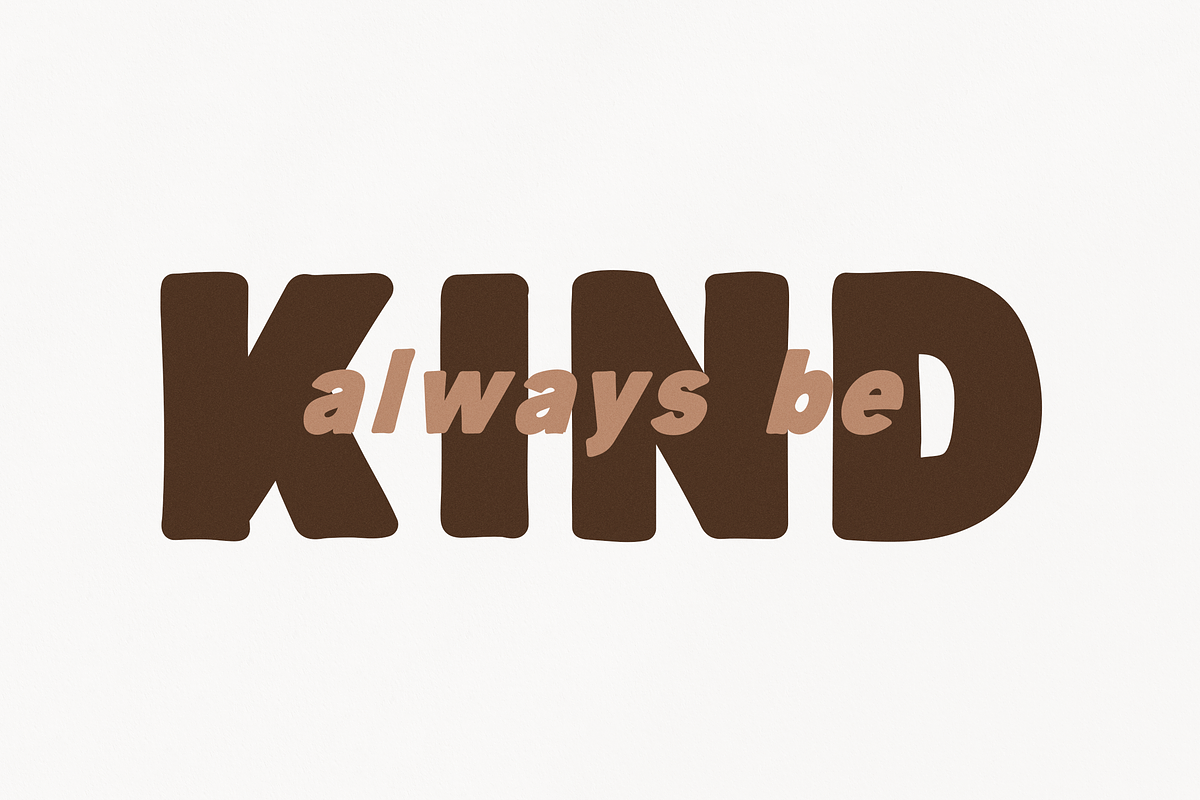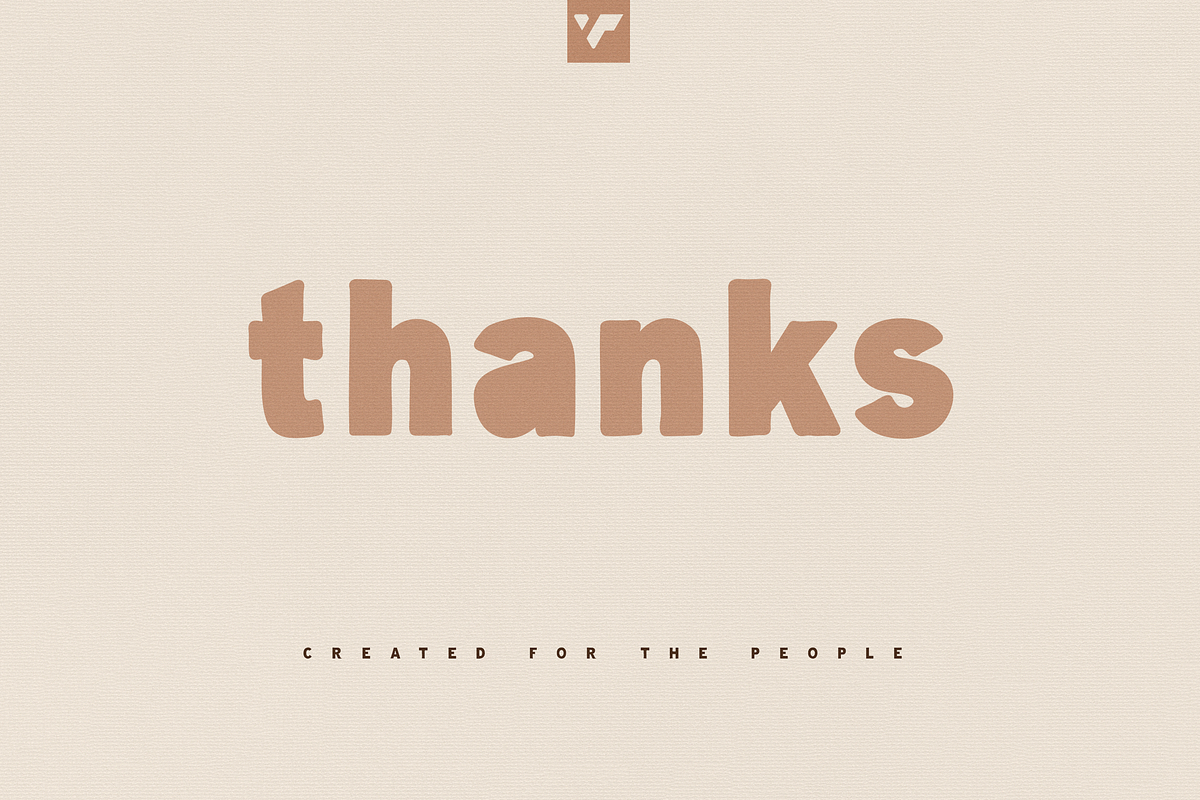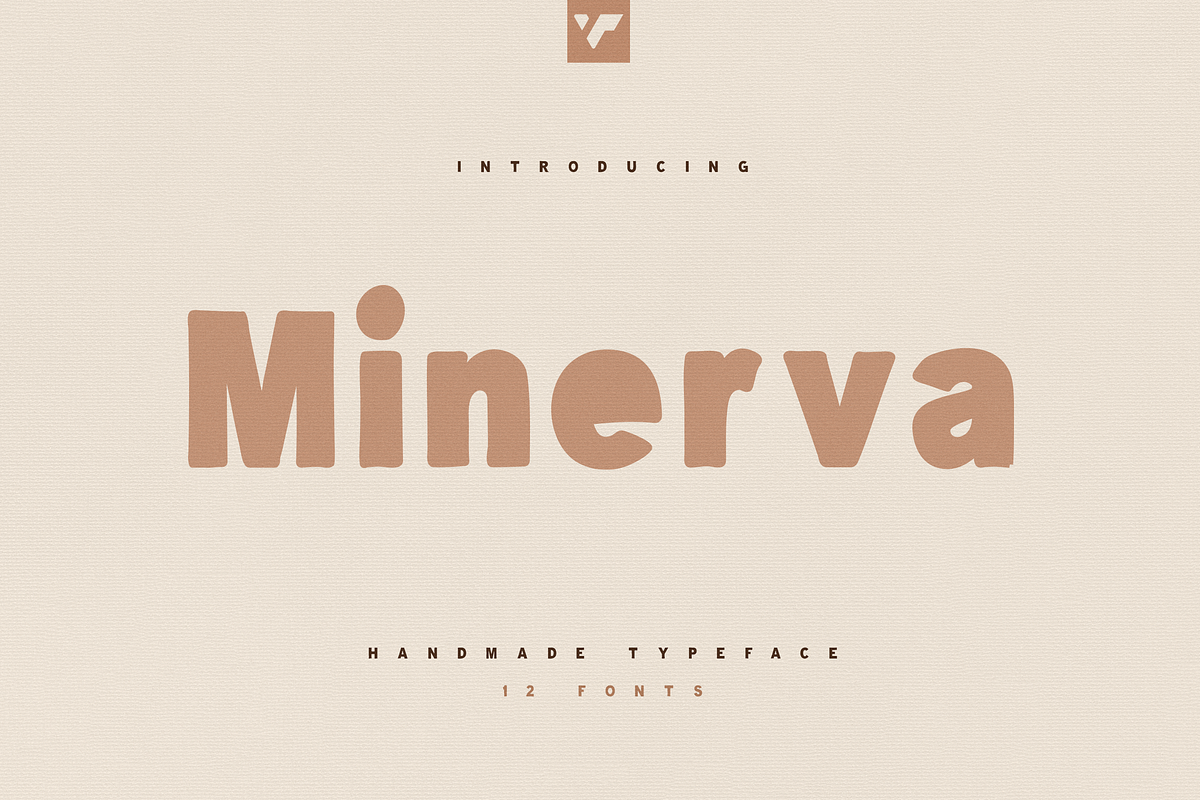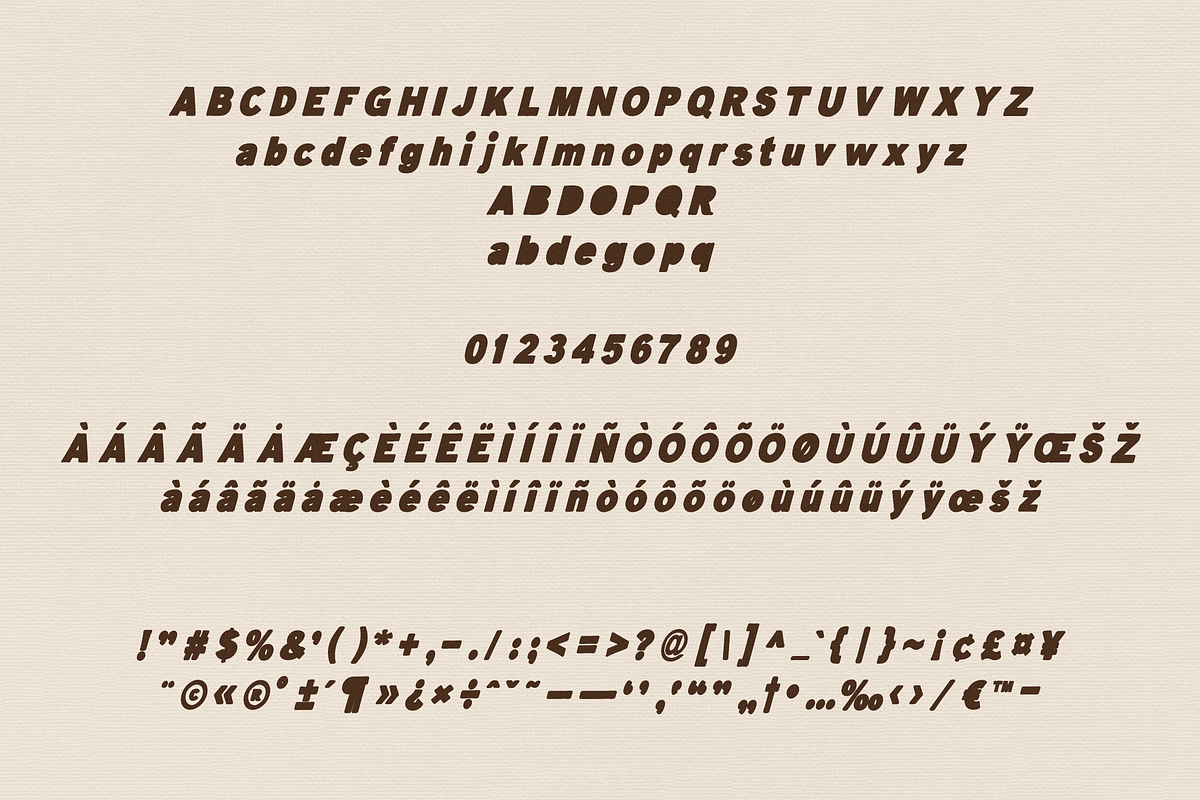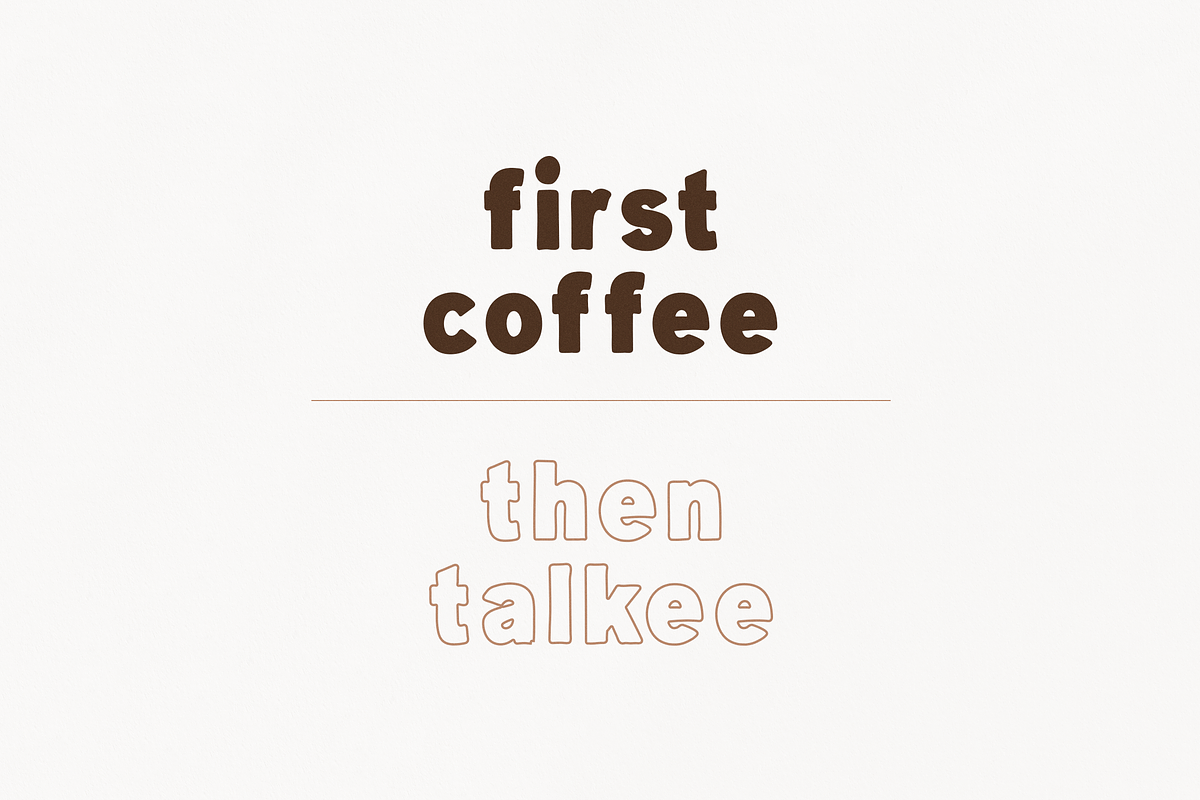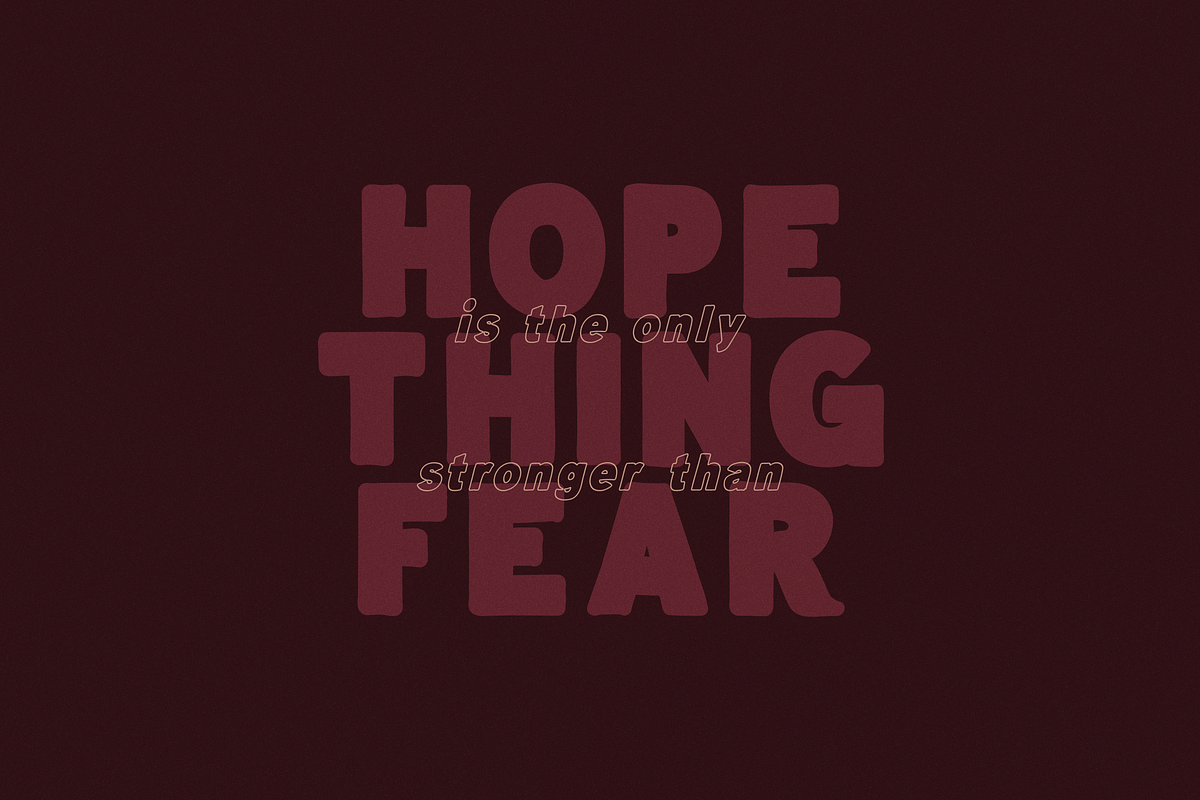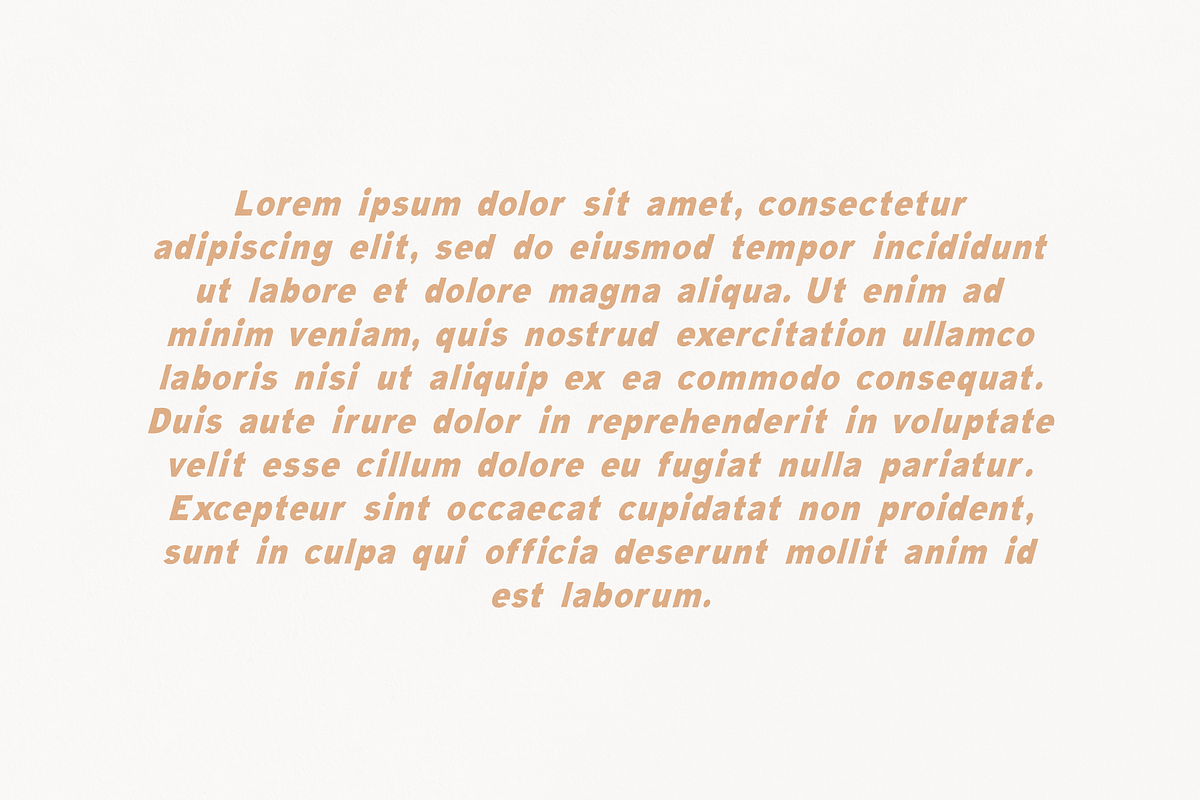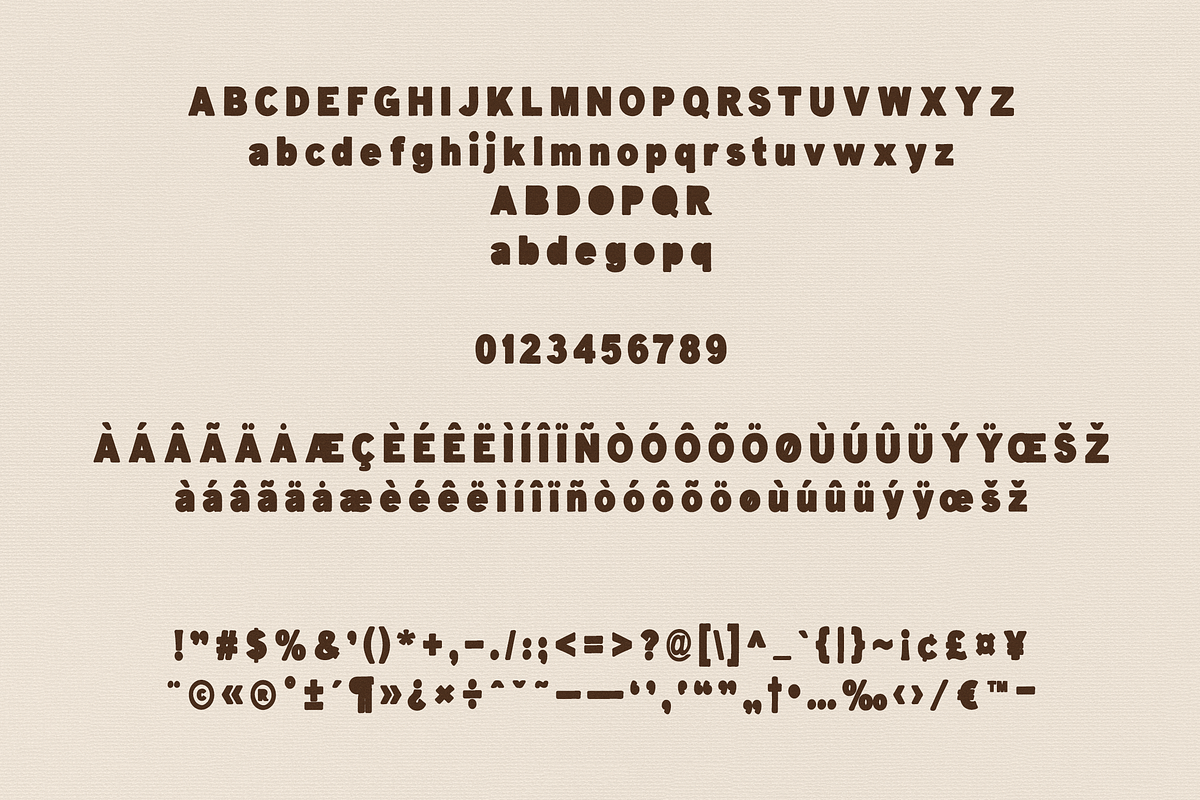
Minerva Handwritten typeface
Introducing Minerva handmade typeface - 12 fonts
Minerva is handwritten and cute typeface loaded with 12 fonts, alternate glyphs and multilingual support to enchant your next project. Very versatile fonts that works great in large and small sizes.
Minerva is perfect for branding projects, home-ware designs, product packaging, magazine headers - or simply as a stylish text overlay to any background image.
- Regular, Bold, Extra Bold, Black styles
- Italic Regular, Bold, Extra Bold, Black styles
- Outline One, Outline Two styles
- Italic Outline One, Outline Two styles
- Uppercase, lowercase, numeral, punctuation & Symbol
- Alternate glyphs